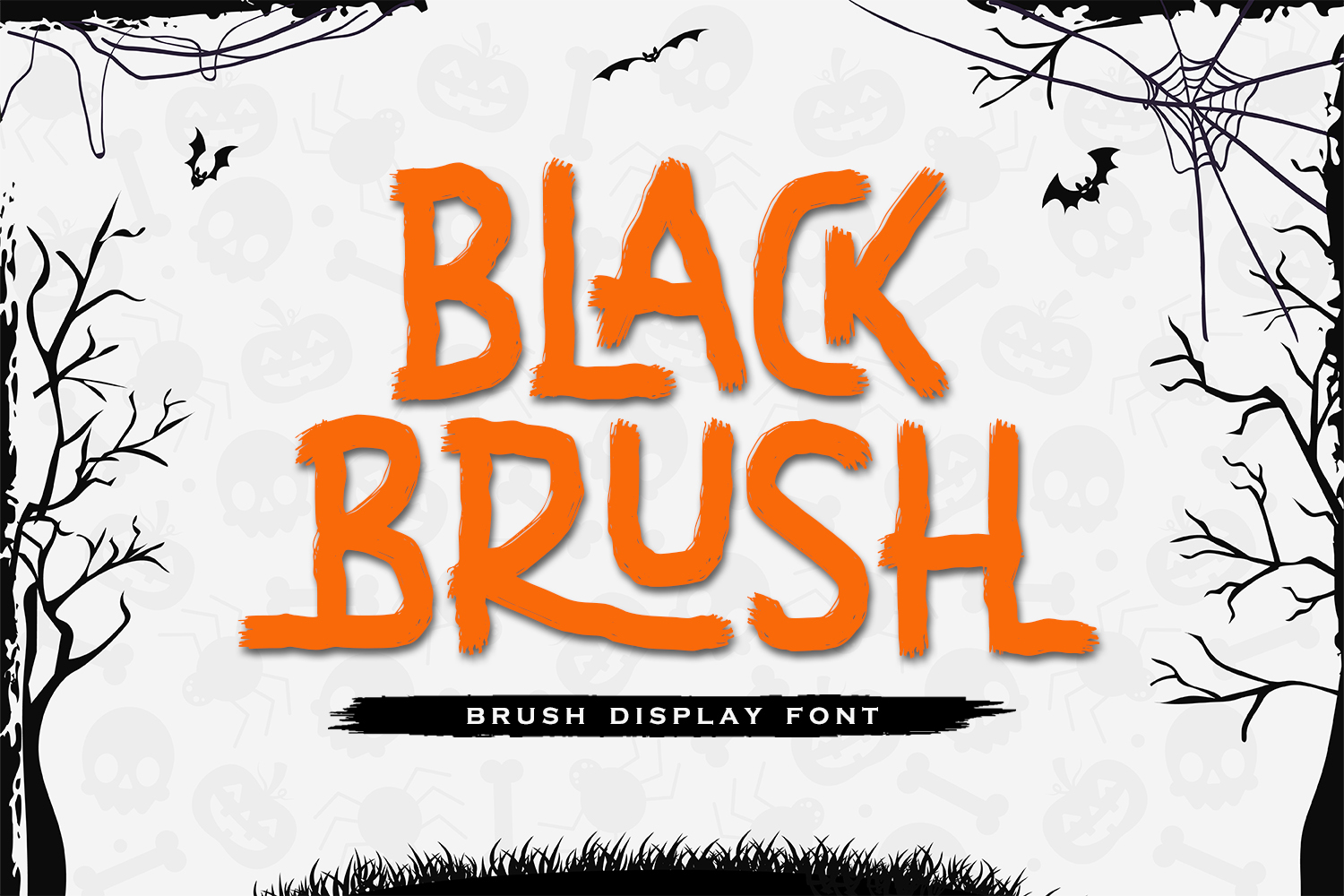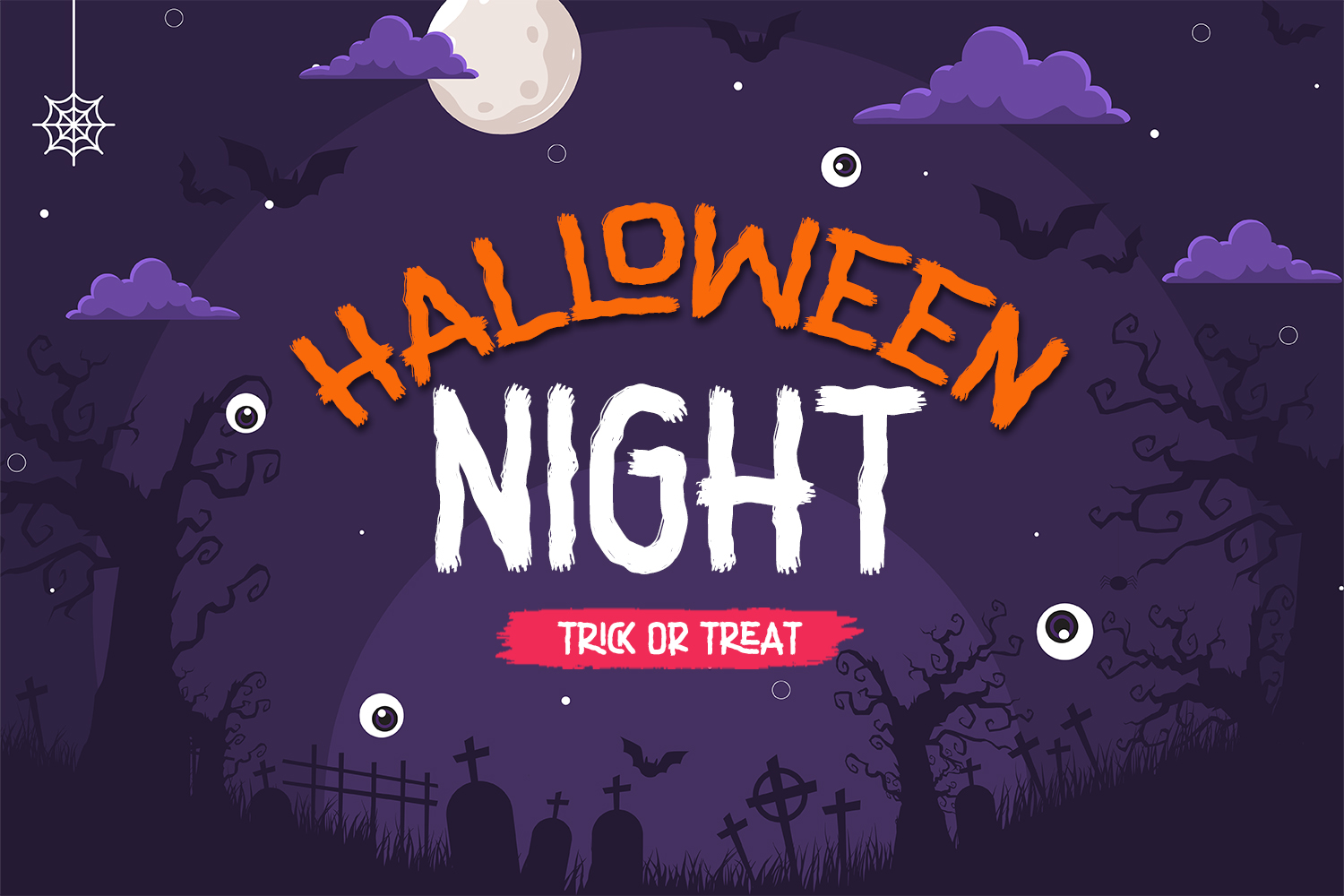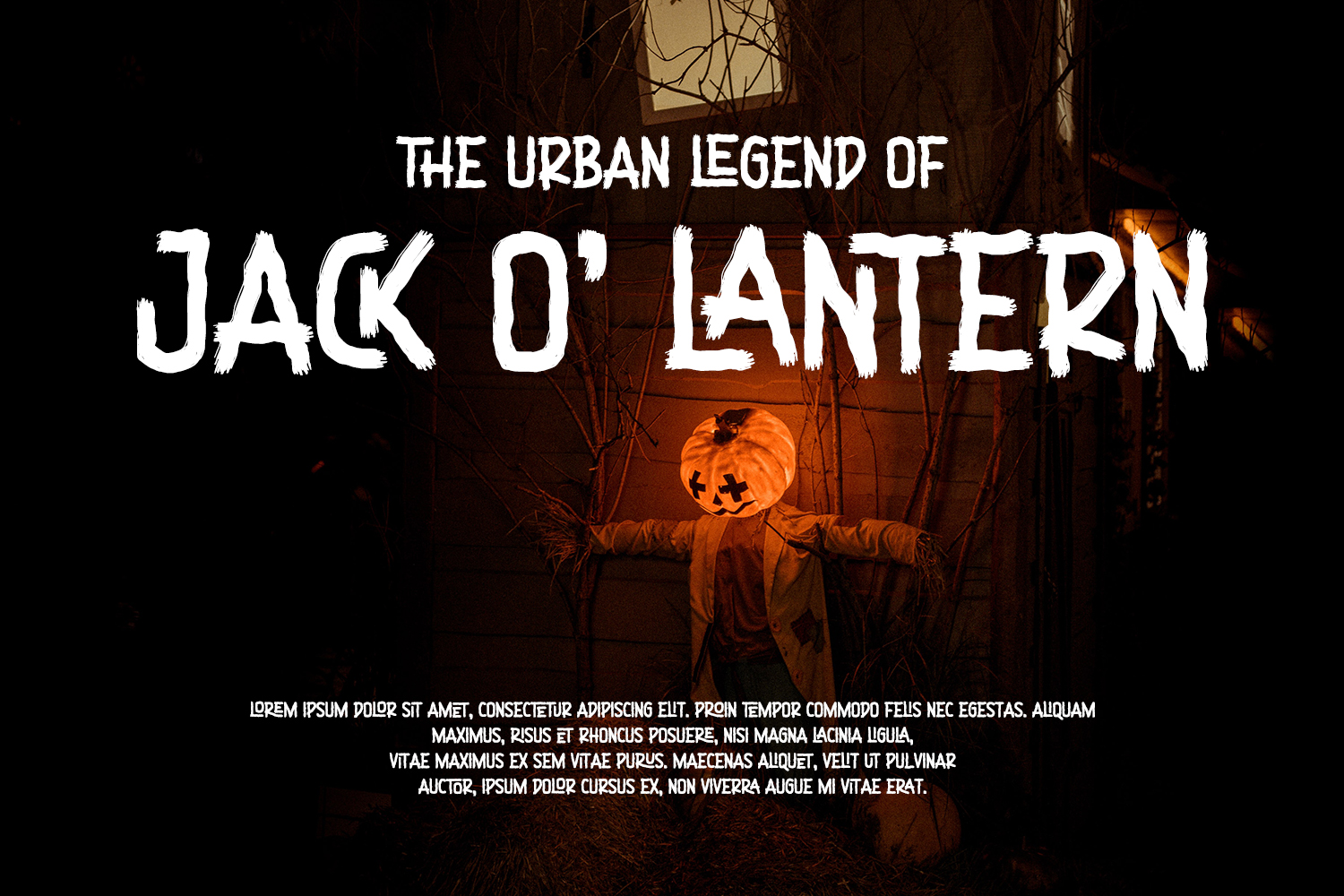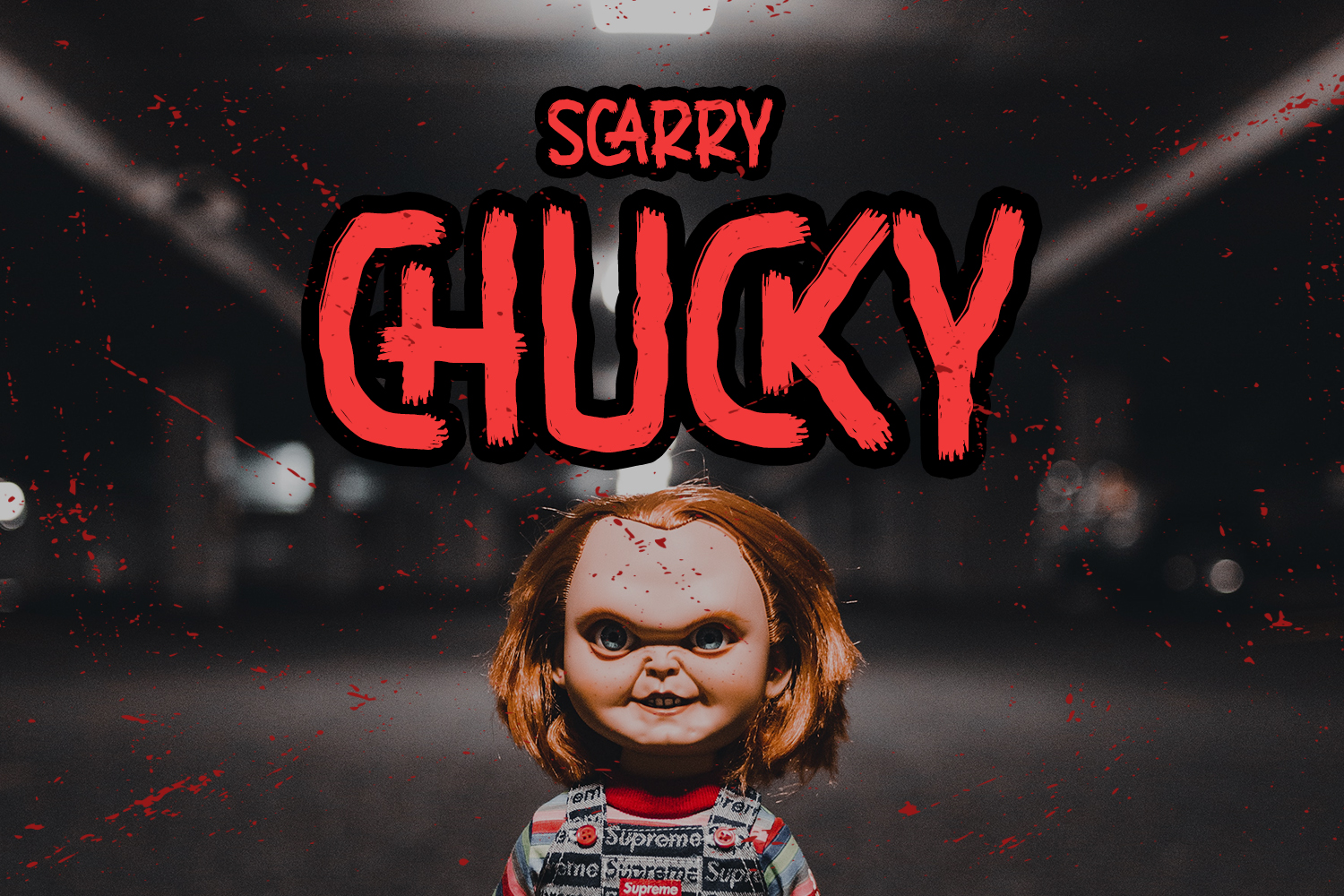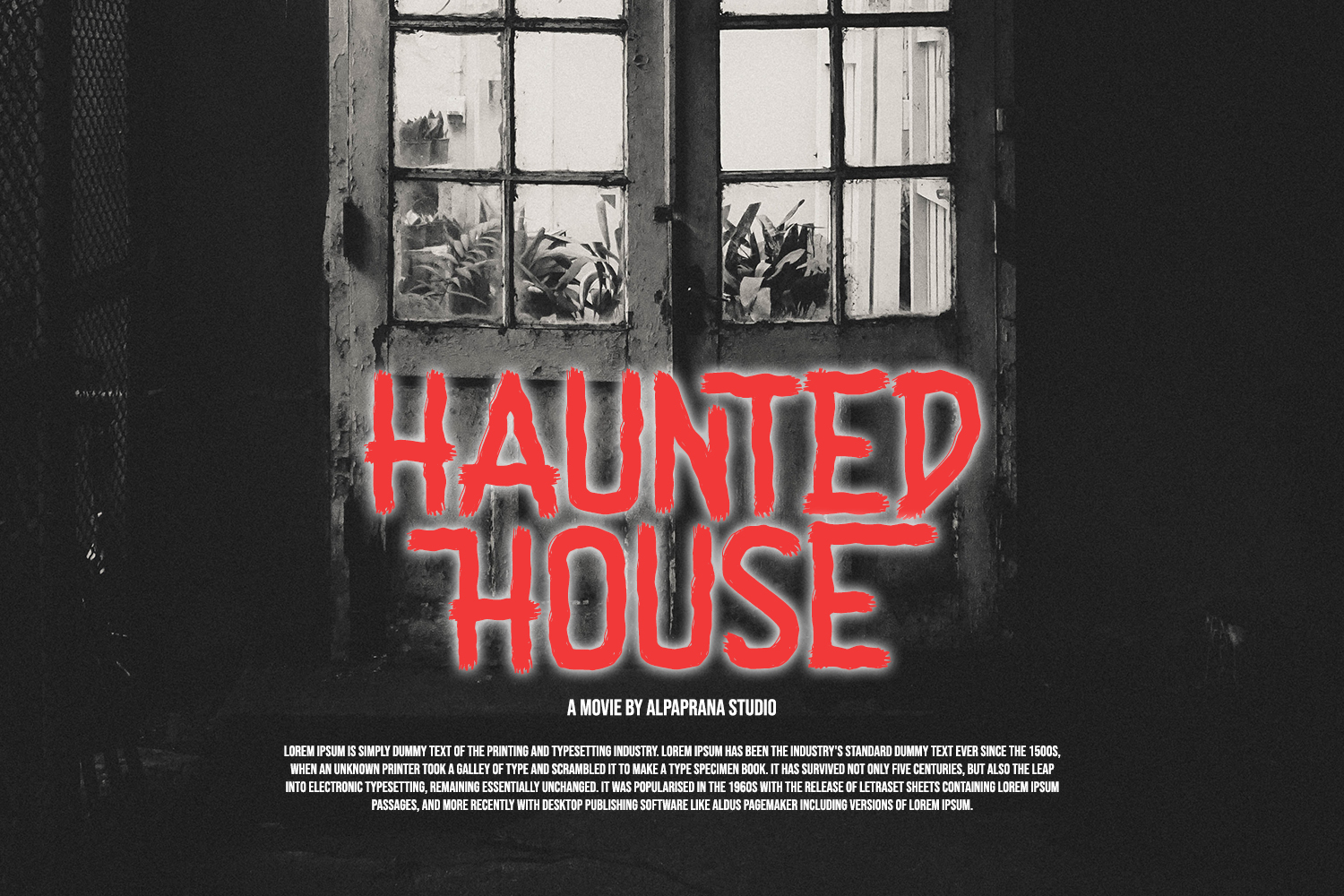
Black Brush Display Font is a stunning brush display font with natural brush and scary feels. It will be perfectly used for Branding, Logo Design, Lettering, Logotype, Clothing, Poster, magazine, packaging, posters, shopping bags, t-shirts, book covers, photography, special events and other design project.